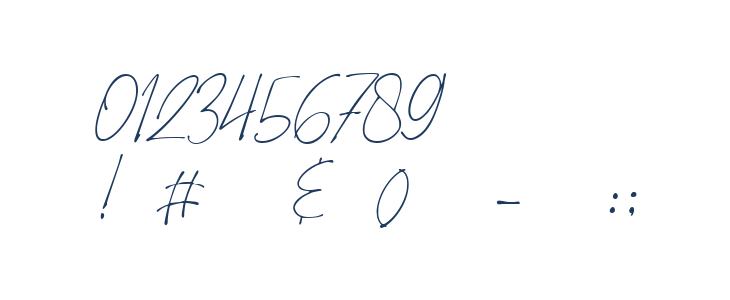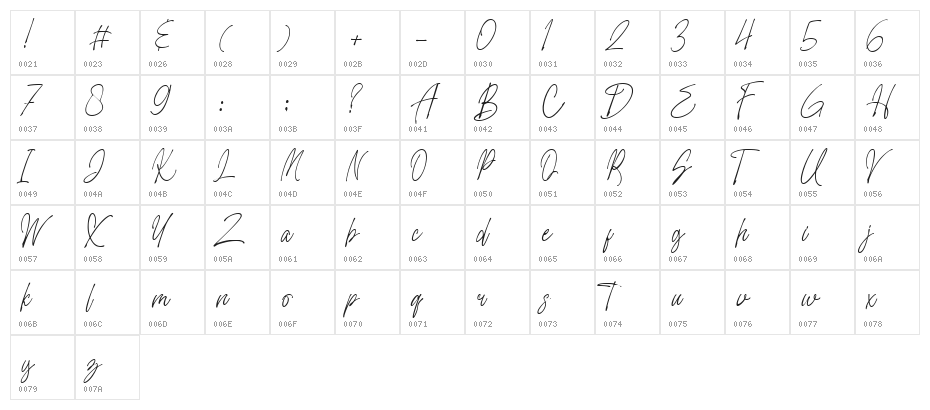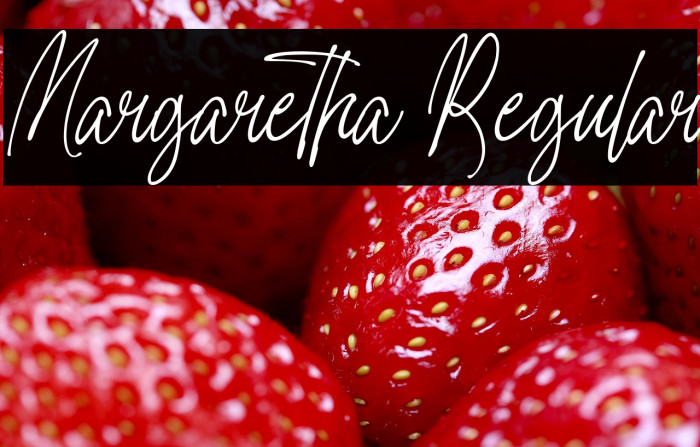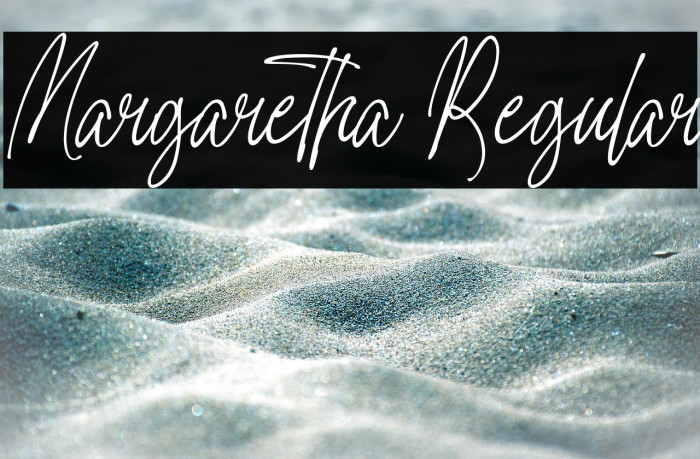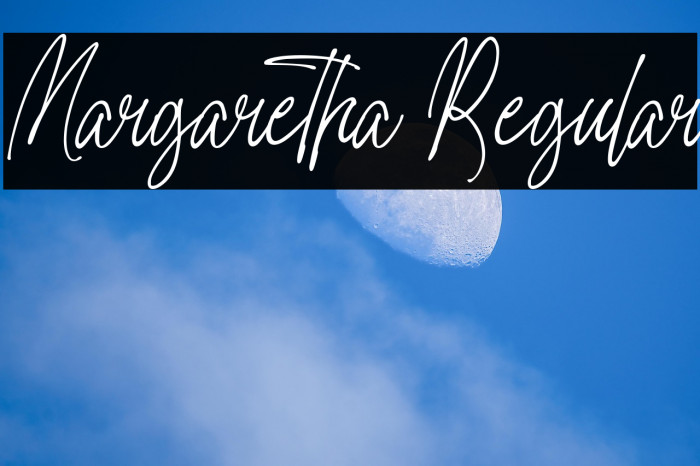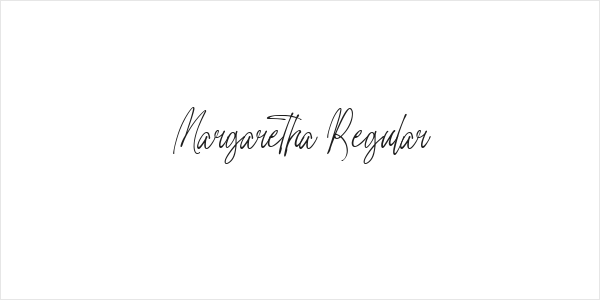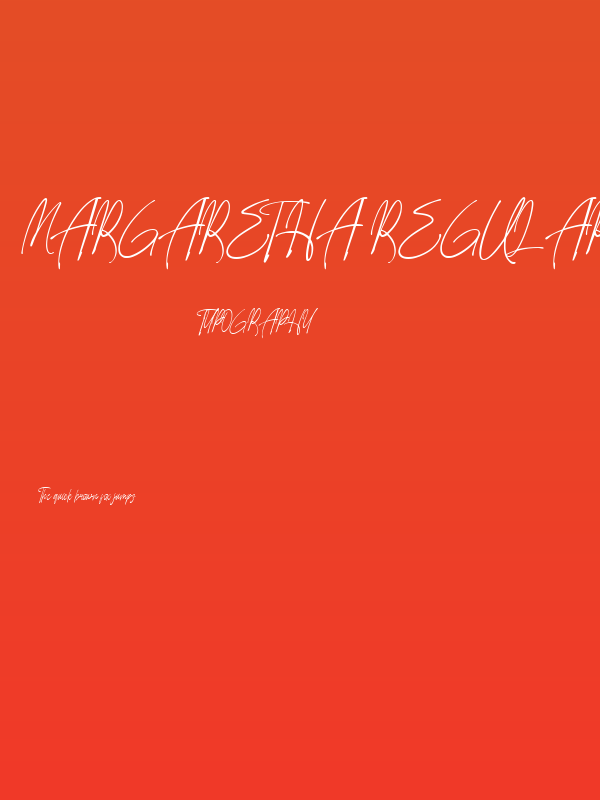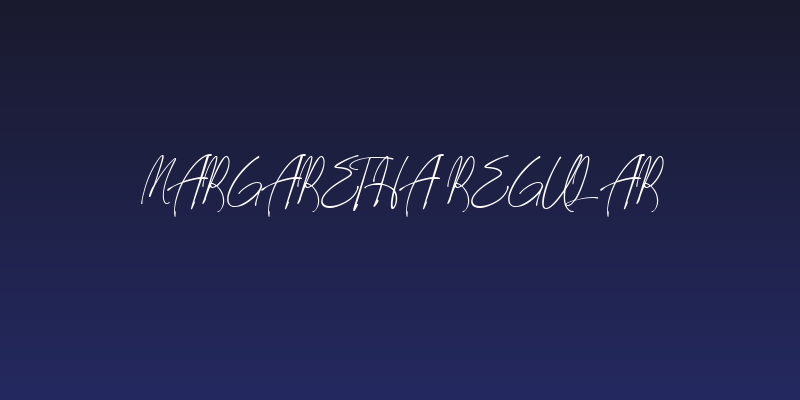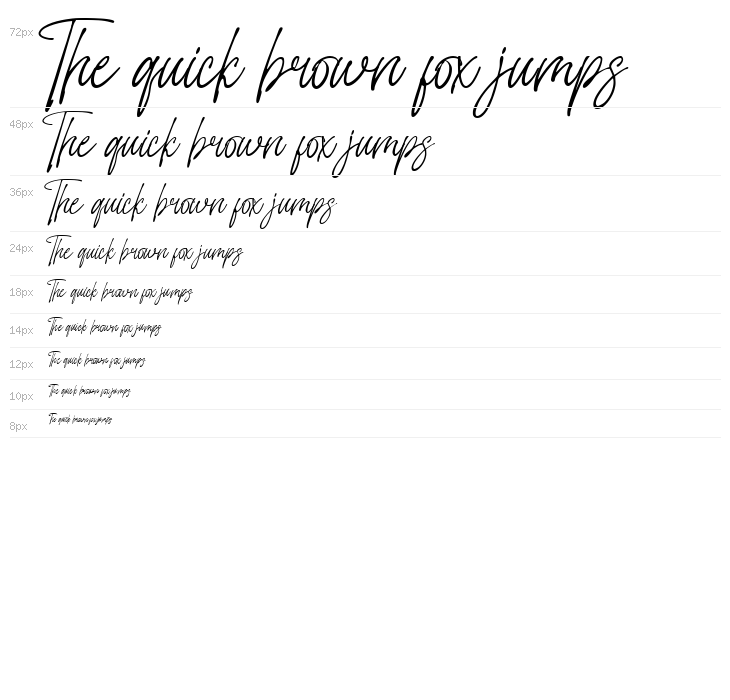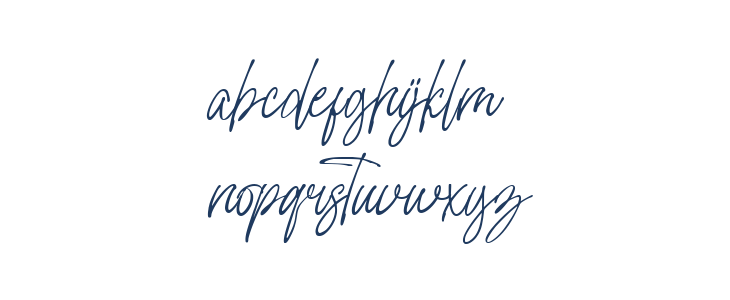
Margaretha Regular Font
Margaretha Regular Description
This font exhibits a flowing, cursive style with elegant, sweeping strokes that give it a handwritten appearance. The characters are connected in a fluid manner, creating a sense of movement and grace. The uppercase letters are tall and slender, with distinctive loops and flourishes, while the lowercase letters maintain a consistent style with subtle variations in stroke width. The numerals and special characters are designed to complement the overall aesthetic, featuring similar curves and lines. This font is ideal for projects that require a personal, artistic touch.